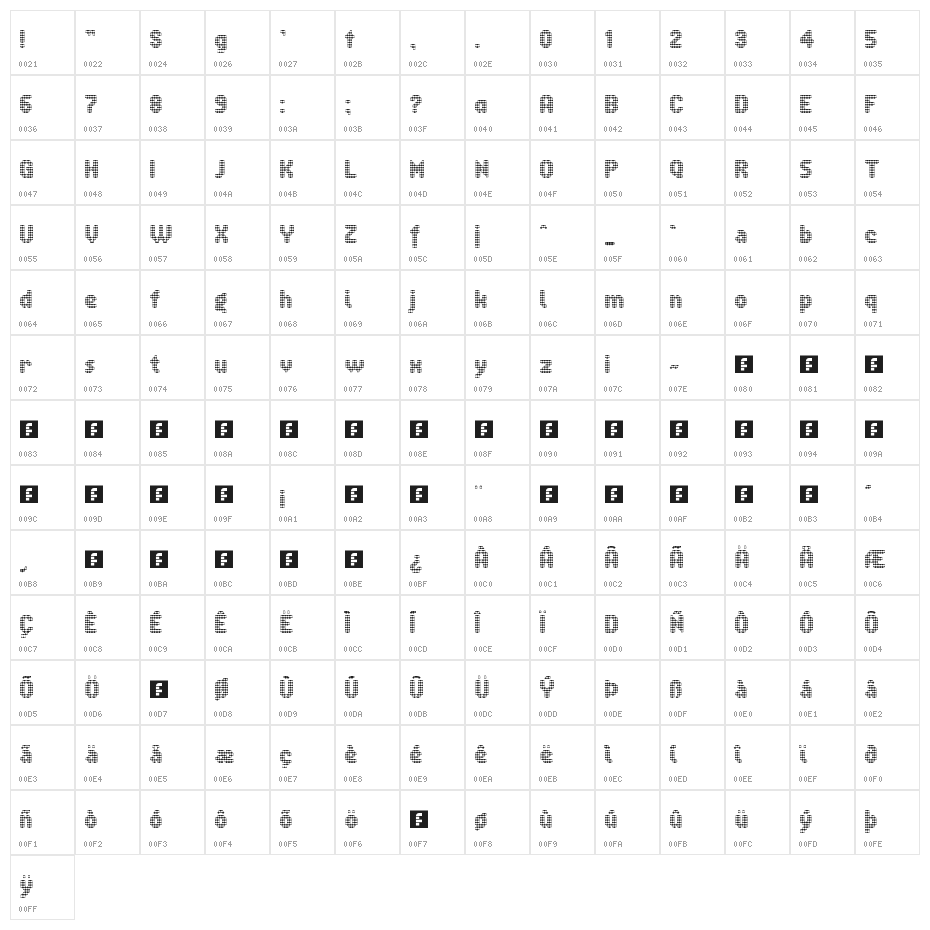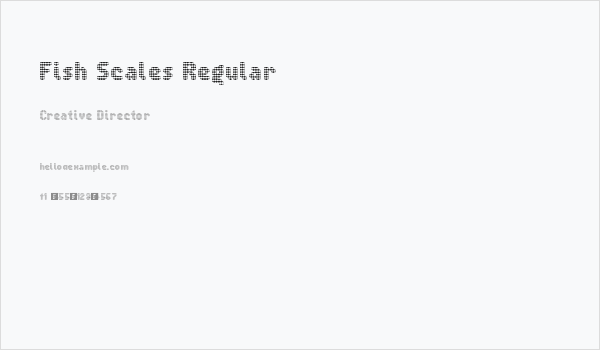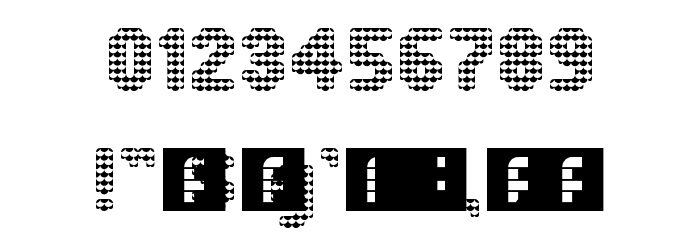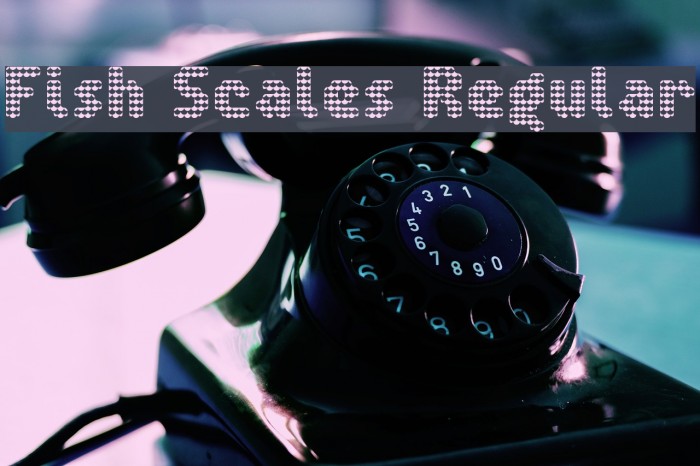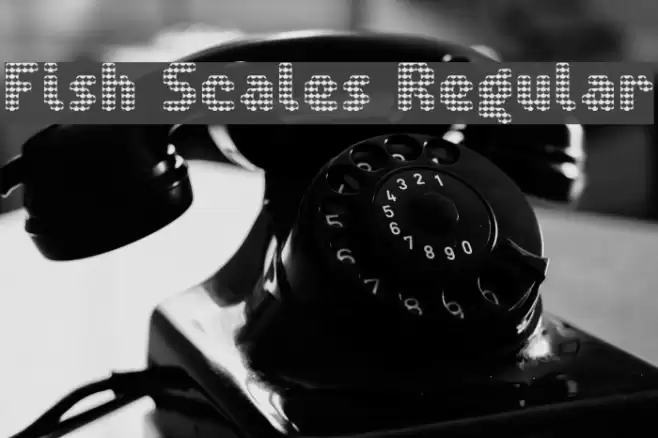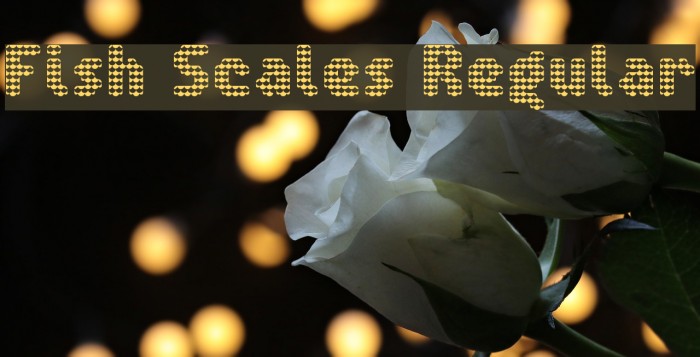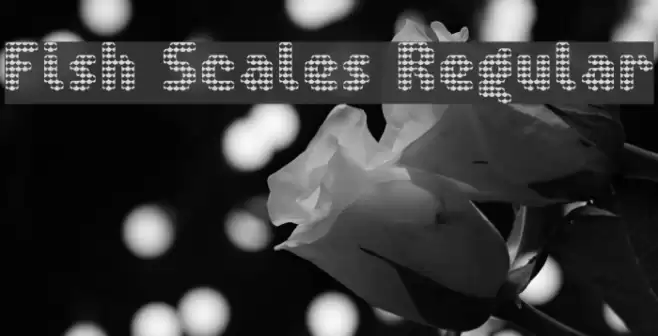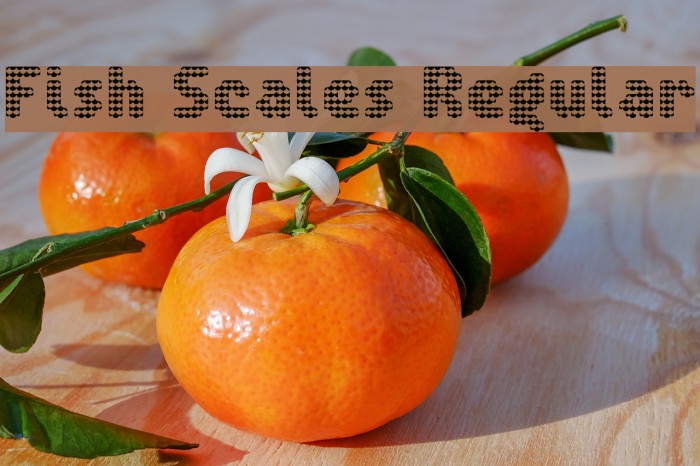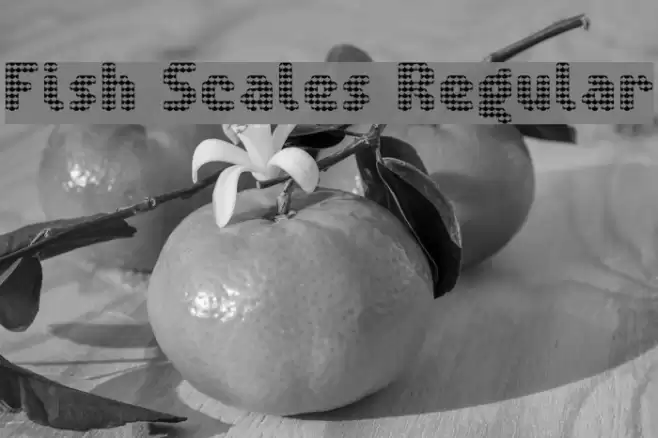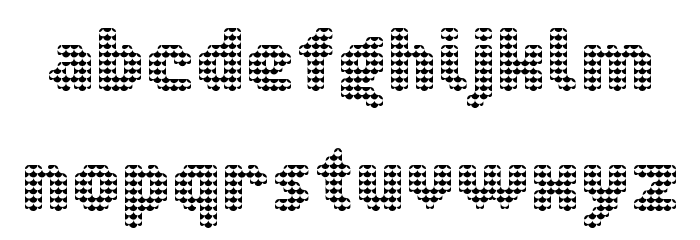
Fish Scales Regular Font
Fish Scales Regular Description
This font features a unique and eye-catching design, characterized by a pattern resembling fish scales. Each character is composed of small, repeating hexagonal shapes that create a textured appearance. The uppercase and lowercase letters maintain a consistent style, with a bold and geometric structure. Numbers and special characters follow the same design principle, ensuring uniformity across all elements. This font's distinct style makes it ideal for projects that require a decorative and modern touch, while still maintaining readability.
| Use Case | Logos, Headlines, Posters |
| Proposed Projects | Ideal for branding, packaging, posters, and any design project that seeks to incorporate a unique and decorative element. |